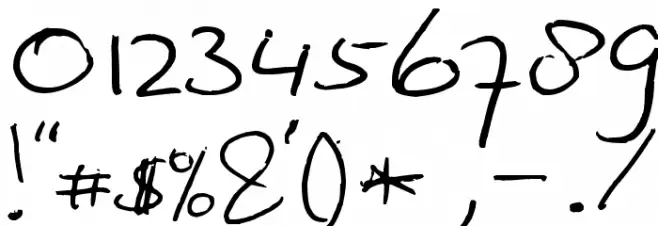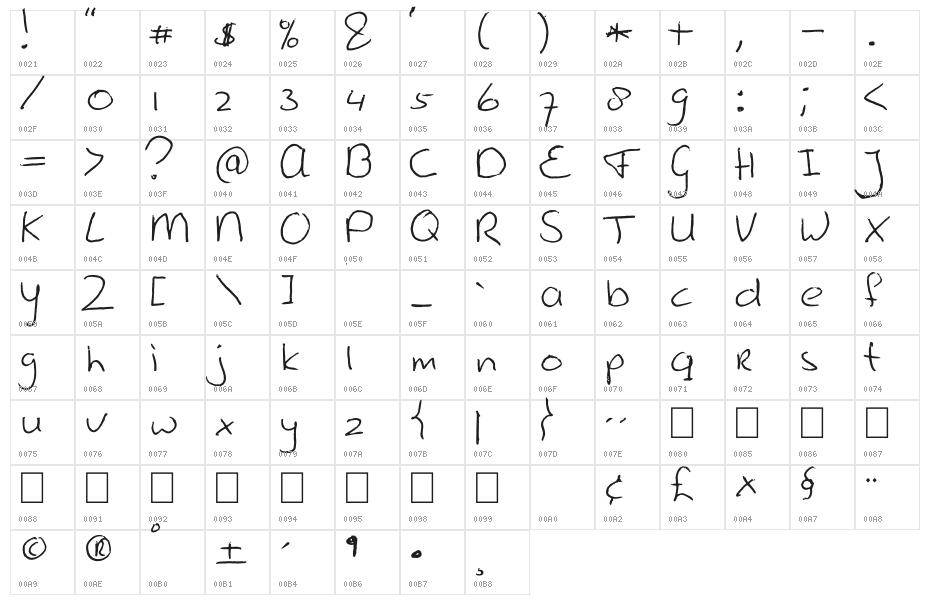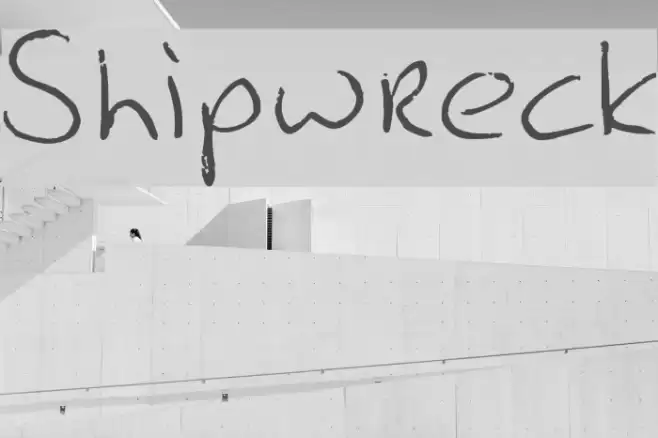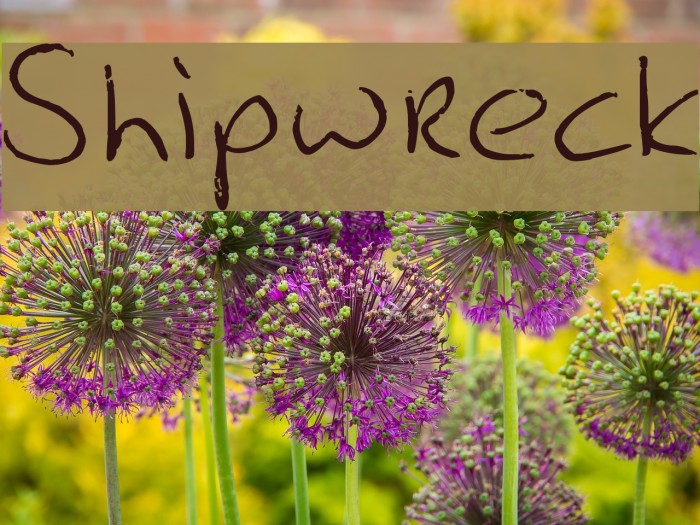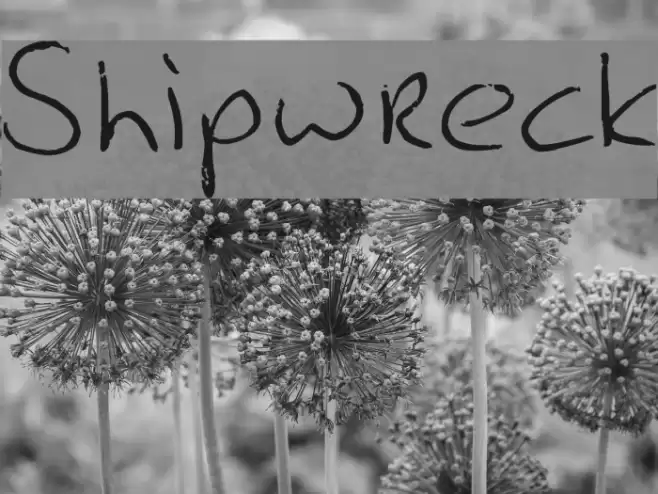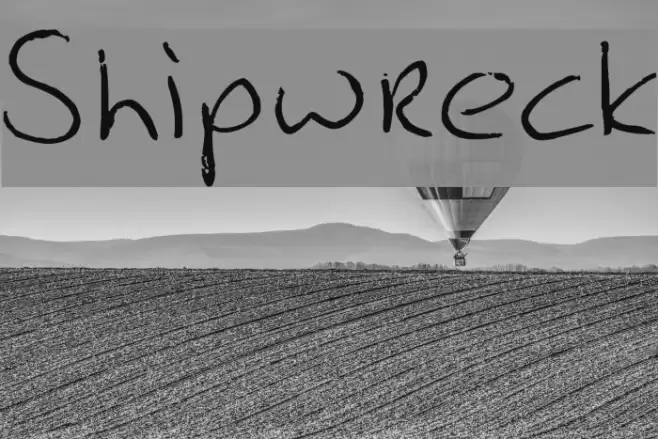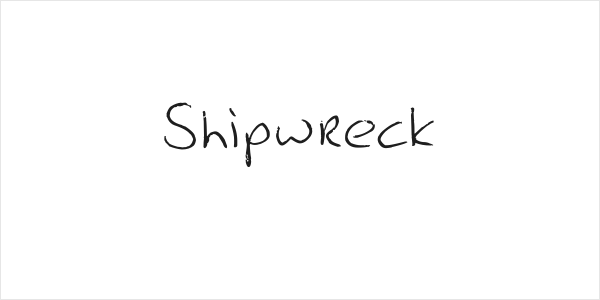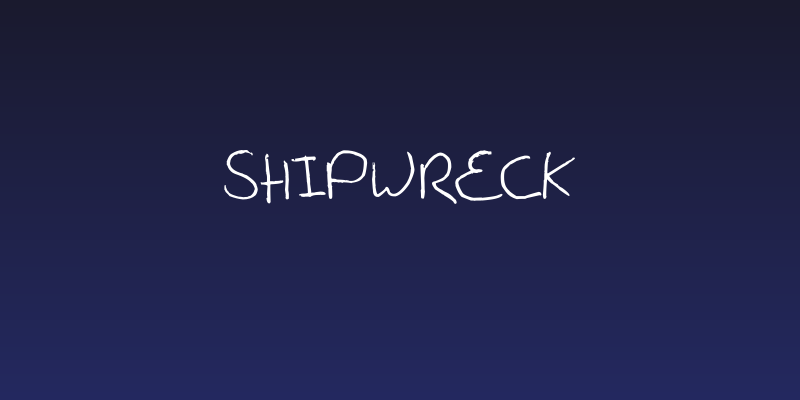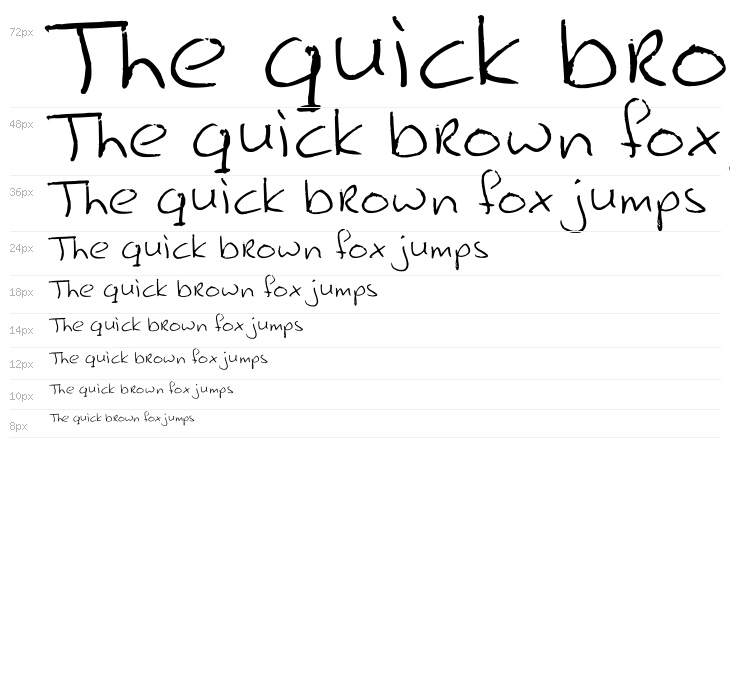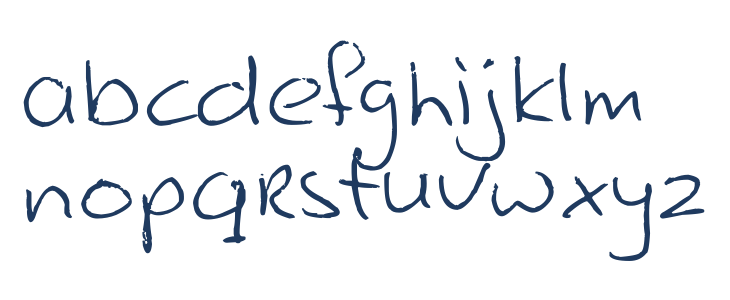
Shipwreck Font
Shipwreck Description
This font features a playful and casual handwritten style, characterized by its irregular and slightly rough strokes. The letters have a natural, free-flowing appearance, giving them a personal and informal touch. The uppercase and lowercase letters maintain a consistent style, with some variation in stroke width that adds to the font's dynamic feel. The numerals and special characters are crafted with the same organic aesthetic, ensuring a cohesive look across all characters. This font's unique charm lies in its imperfect lines and spontaneous design, making it ideal for projects that require a personal and approachable feel.